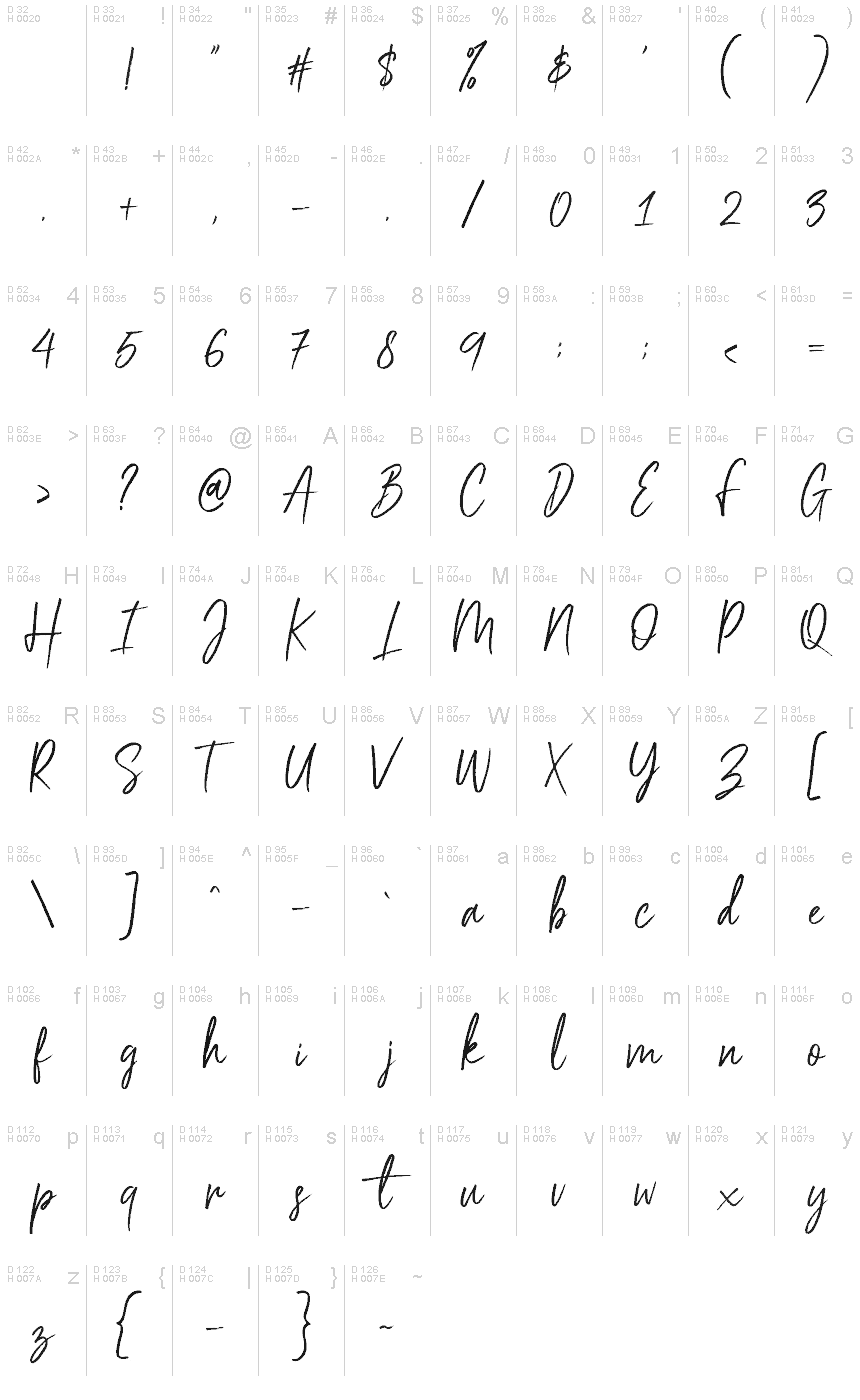
Sehaty
Sehaty Font can be incorporated into many designs including quotes text, wedding invitations, posters and you can create custom cards to give to your friends and family.